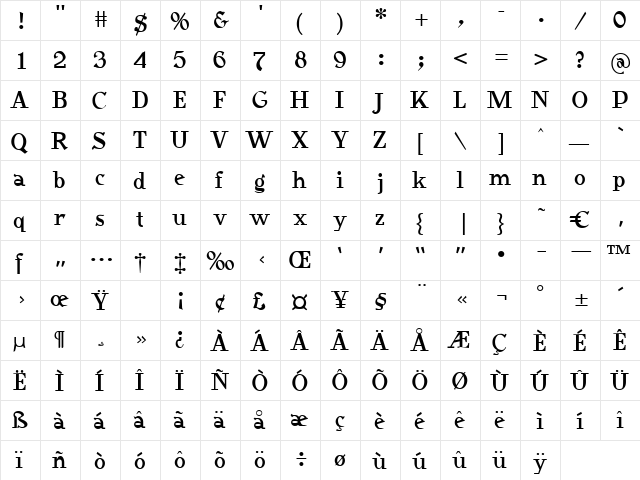
SafranBold Regular
Design Context for SafranBold Typeface
SafranBold is a composed and adaptable typeface that performs quietly and consistently across a wide range of design contexts. Its bold stroke weight gives it real presence on the page.
Pro Tip: Use SafranBold in both headline and body roles to test its range before committing to a single application.